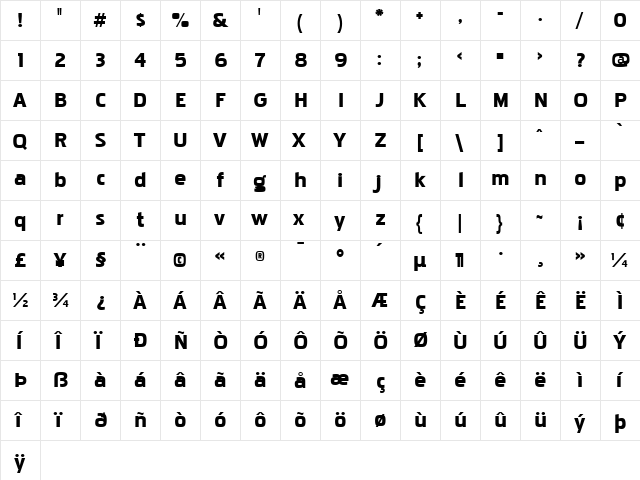
Pakenham Xp Blk Regular
Design Context for Pakenham Xp Blk Typeface
Pakenham Xp Blk takes a measured approach to typography — its balanced proportions and neutral character make it a reliable workhorse for both digital and print work.